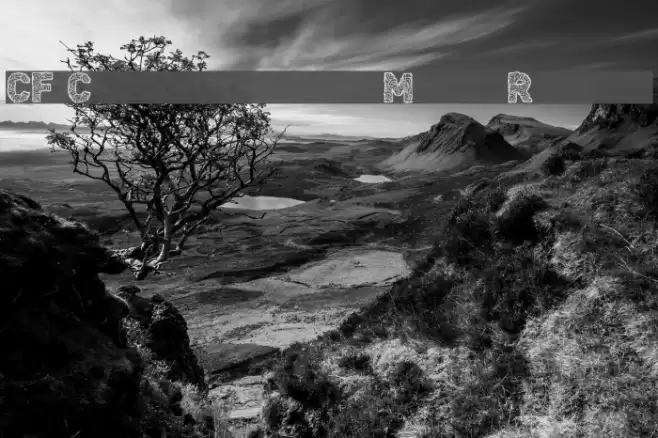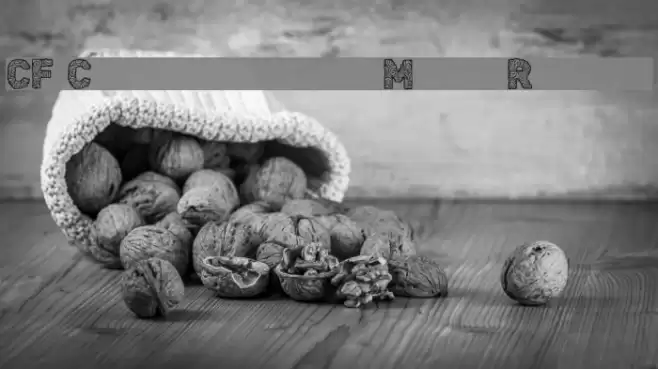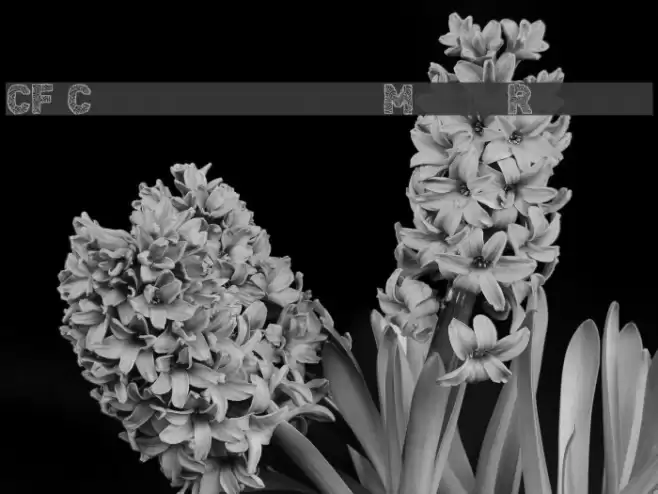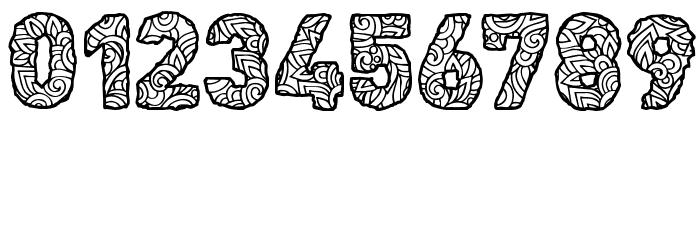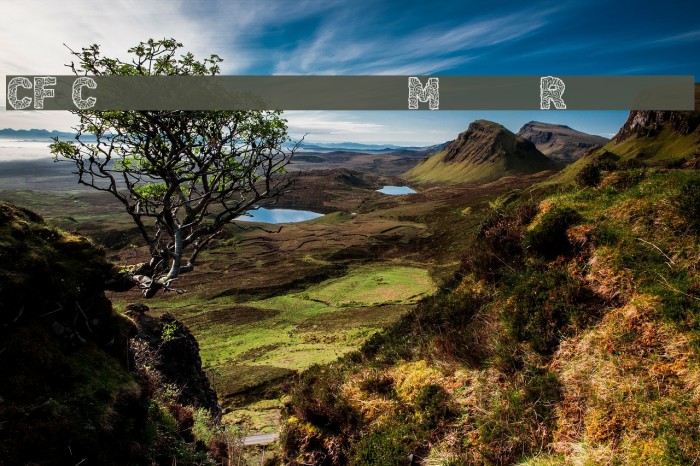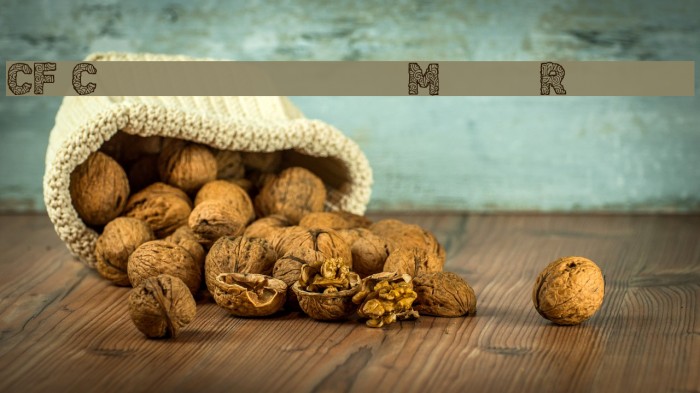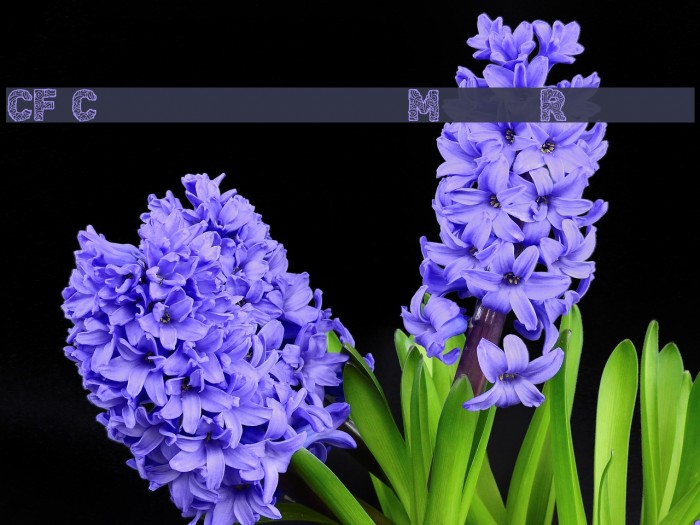
CF Civilisation Maya Regular Font
CF Civilisation Maya Regular Description
This font features an intricate and decorative design, reminiscent of ancient Mayan art and architecture. Each character is filled with elaborate patterns and motifs, giving it a unique and artistic appearance. The bold and complex detailing within each letter and number creates a striking visual impact, making it ideal for projects that require a touch of historical or cultural flair. The font's style is both captivating and distinctive, perfect for creative and thematic designs.
A decorative font with intricate, Mayan-inspired patterns from Decorative fonts.
- Proposed Projects: Ideal for cultural event posters, themed invitations, artistic projects, and branding that seeks a historical or exotic touch.
- Use Case: Headlines, Logos, Artistic projects